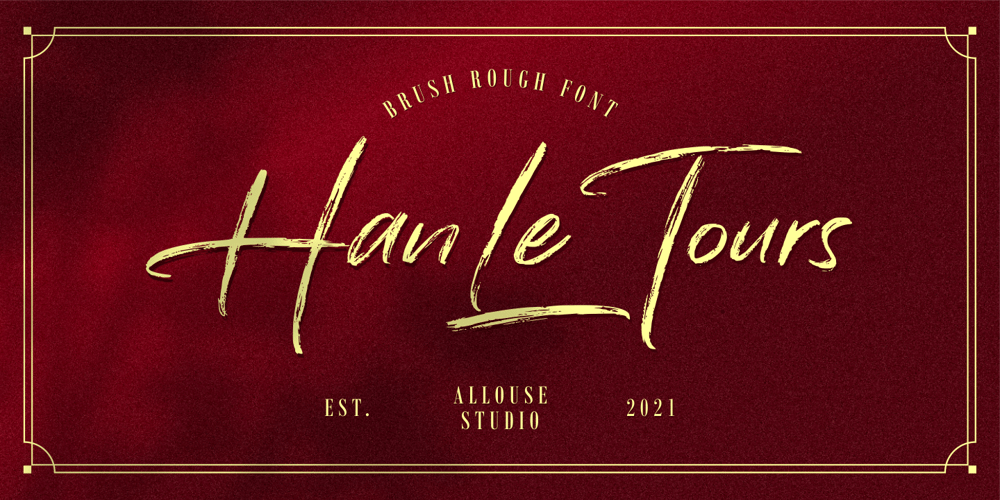
Han Le Tours Font Family was designed by Fachrizal Yusuf and published by Allouse Studio. Han Le Tours contains 1 styles and family package options. Proudly Presenting, Han Le Tours a Rough Brush Font that will give you an a natural writing and badass impression!This font came with much extra for your need. Stylistic-Alternates, Swash, Underline Styles, and Multi-Lingual Support in one file.We highly recommend using a program that supports OpenType features and Glyphs panels like many of Adobe apps and Corel Draw, so you can see and access all Glyph variations.Han Le Tours is perfect for any tittles, logo, product packaging, branding project, megazine, social media, wedding, or just used to express words above the background.Enjoy the font, feel free to comment or feedback, send me PM or email. Thank You!